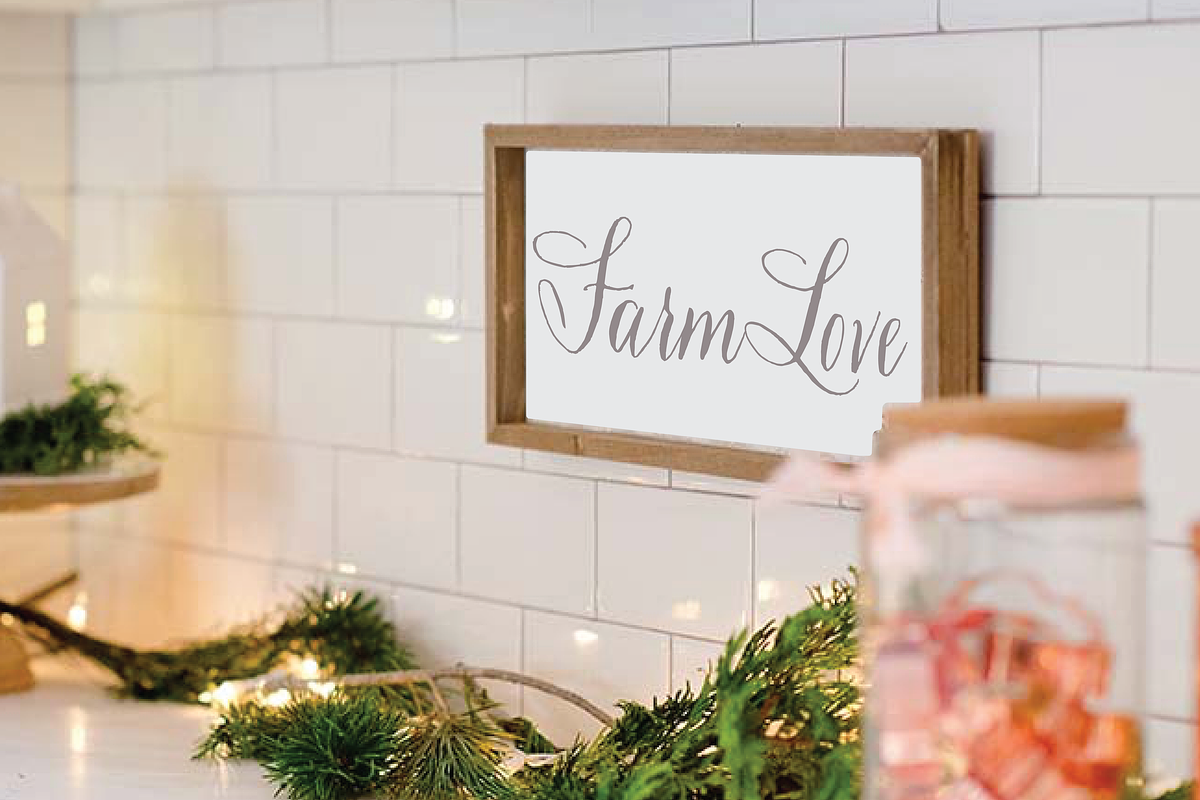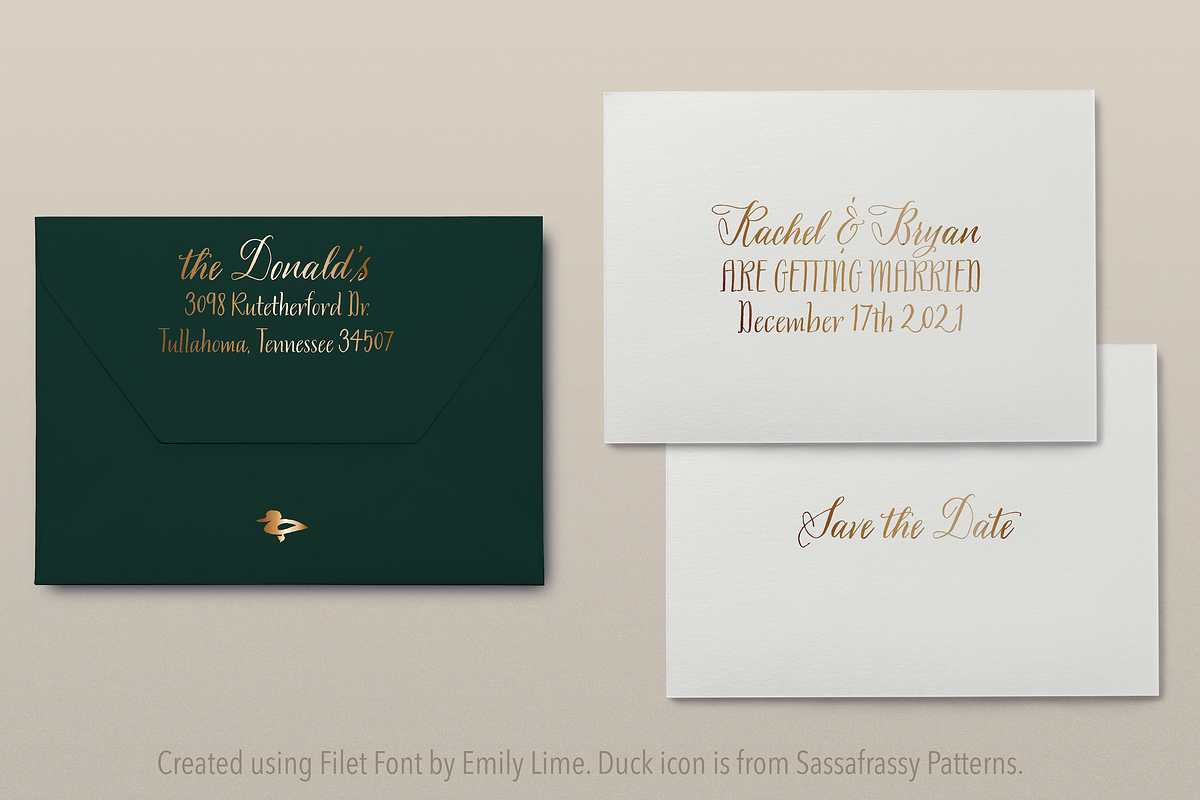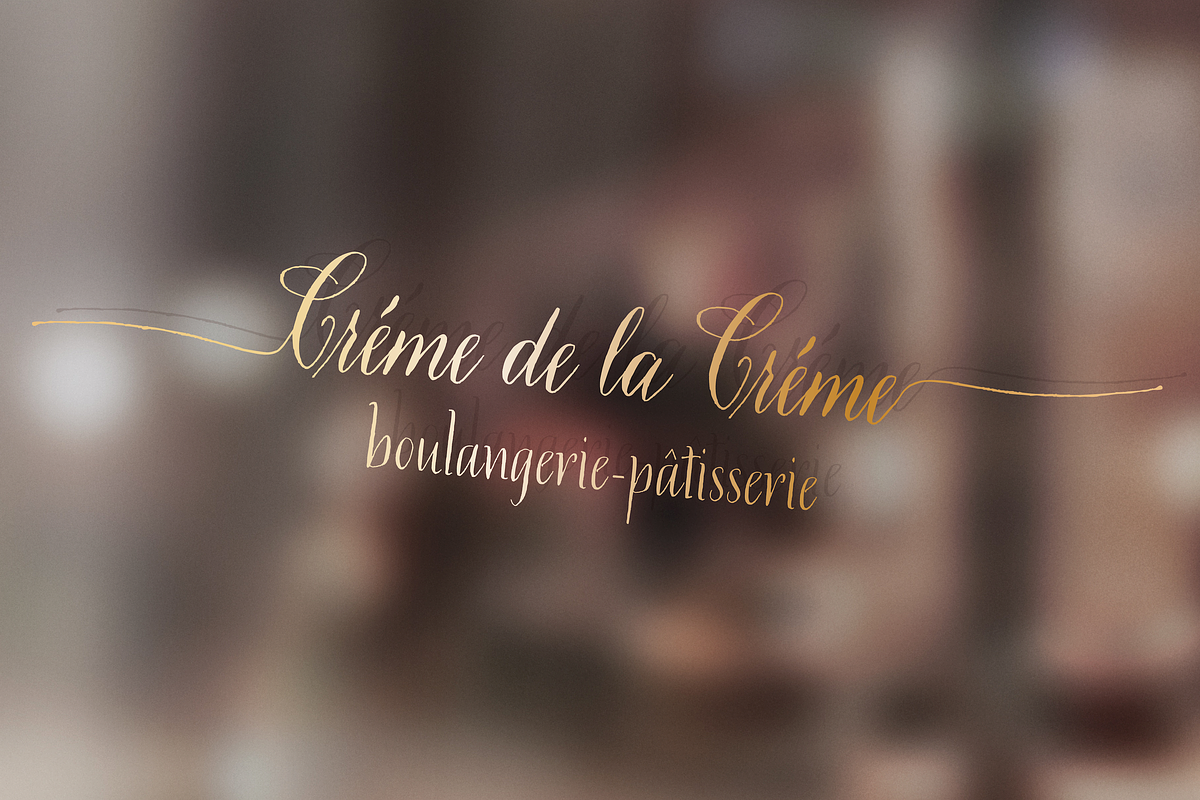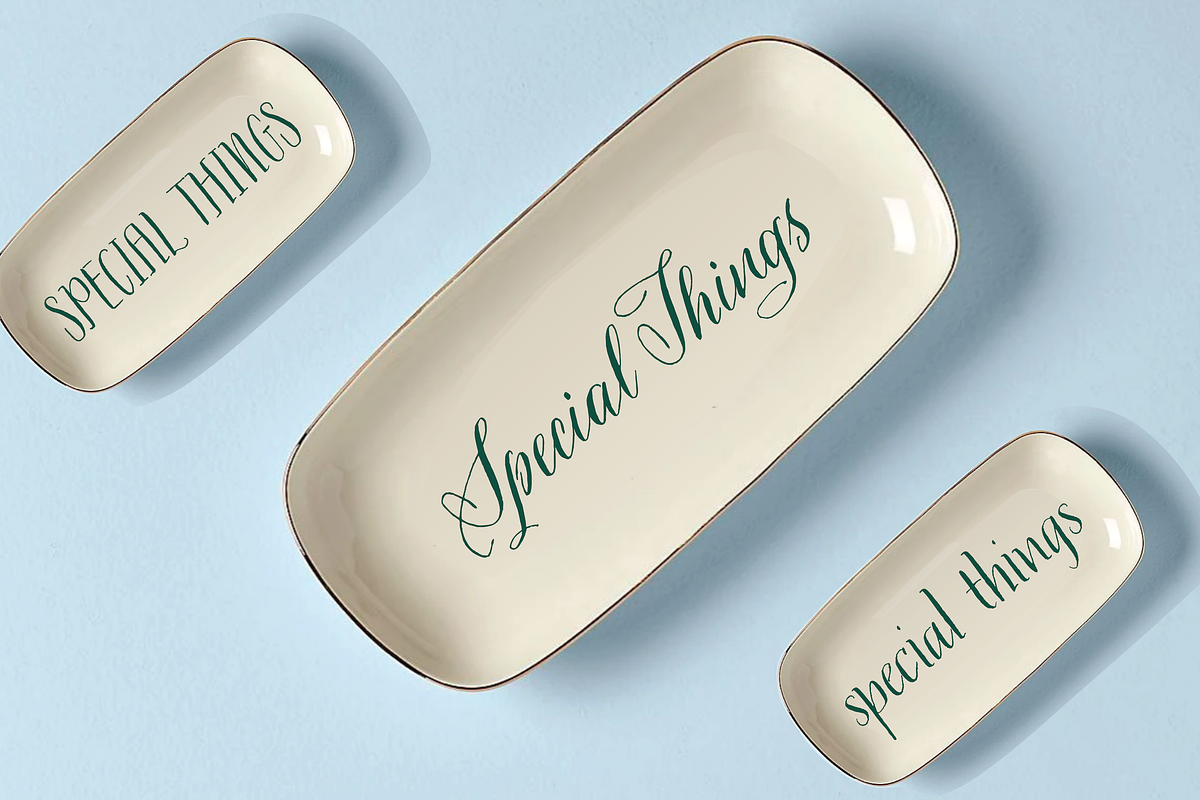
Filet Font Duo
Expertly designed calligraphy duo FILET. This hand-lettered font comes with both a script & serif which pair perfectly on your envelopes, wedding invites, menus, and more. Also included as a BONUS are 42 vintage illustrations that have been isolated & retouched. Perfect for creating patterns & backgrounds in your designs or headings on your menus.
Filet Script- A pointed pen calligraphy script featuring upper & lowercase, several alternates, ligatures, punctuation, numerals, symbols, foreigns characters PLUS what I call “the bombshell lines”, lines made popular by my font Bombshell - that can be added to the beginning & end of a word.
Filet Serif- A pointed pen handwriting font, featuring a subtle serif detail throughout. Font contains all uppercase & lowercase, punctuation, numerals, symbols & foreign characters. NOTE: Both fonts have a sublty rough texture, making them very realistic when printed. 42 Vintage Illustrations• Isolated & retouched, included as an .svg file.